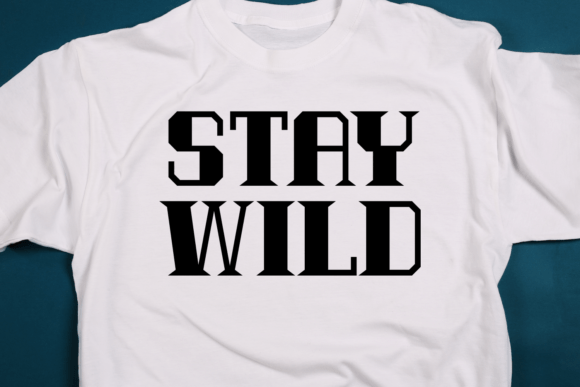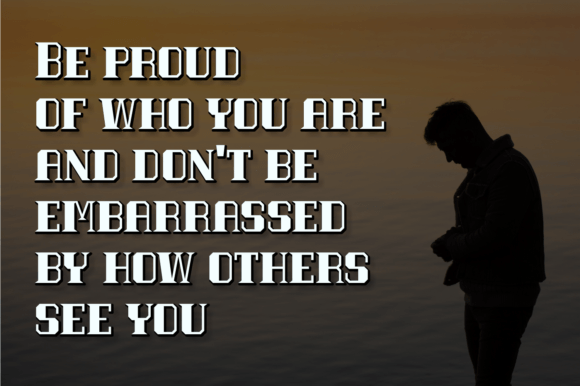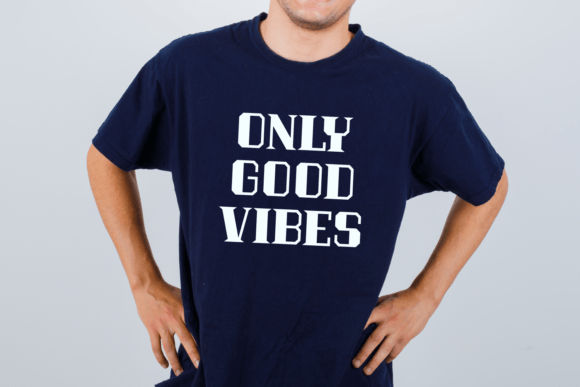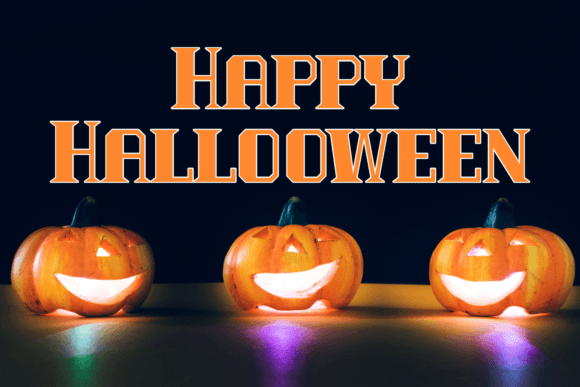
Deck the Halls with Distant Light Font
It’s that time of the year again – the holiday season is just around the corner, and as designers, we’re on the lookout for that perfect font to make our Christmas cards, posters, and social media posts merry and bright. I still remember the year I spent hours scouring font websites for the ideal Christmas font, only to settle for something that was ‘good enough.’ Fast forward to today, and I’m thrilled to share with you a festive find that’s sure to bring joy to your designs: Distant Light Font.
A Festive Favorite: What I Love About Distant Light Font
As soon as I laid eyes on Distant Light Font, I knew I had found a gem. Here are a few things that make it stand out:
- ✨ Playful and festive vibe: Distant Light Font embodies the lively spirit of the holiday season, making it perfect for Christmas cards, decorations, and more.
- ✅ Highly versatile: Whether you’re designing a social media post, a flyer, or a full-blown campaign, this font adapts seamlessly to various design contexts.
- 🎉 OpenType features: With access to a range of stylistic alternates and glyphs, you can easily customize your text to fit your design vision.
The Not-So-Perfect: A Few Quirks
No font is perfect, and Distant Light Font is no exception. Here are a few things to keep in mind:
- 🤔 Legibility at small sizes: While the font looks stunning at larger sizes, it may become a bit tricky to read when scaled down. Make sure to test it at various sizes to ensure it works for your design.
- ⚠️ Limited use outside of festive contexts: Given its strong association with the holiday season, Distant Light Font might not be the best choice for non-Christmas related designs.
The Story Behind Distant Light Font
While the origins of Distant Light Font remain a bit of a mystery, it’s clear that the designer aimed to capture the magic and excitement of the holiday season. Imagine a snowy evening, the sky lit up by the twinkling lights of a festive market – that’s the feeling Distant Light Font embodies.